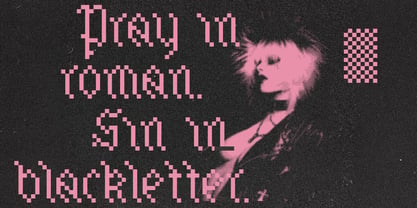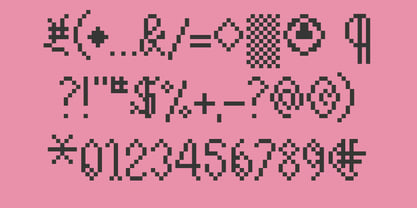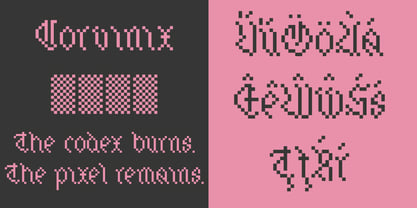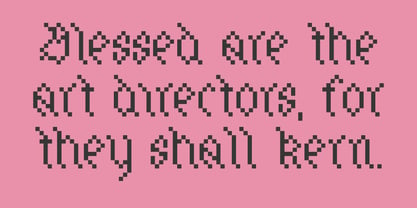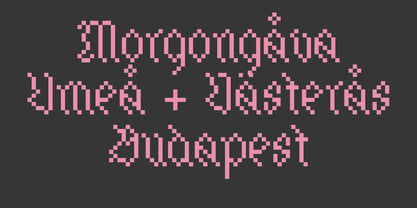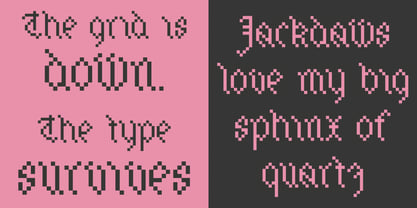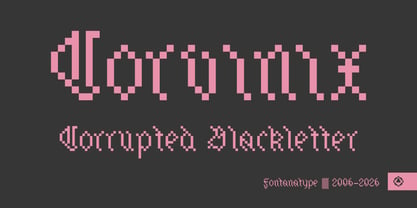
Corvinix
The Corvinix Font Family was designed by Amondó Szegi and published by Fontanatype. Corvinix contains 1 styles. More about this family
Corvinix — Corrupted Blackletter Metal album covers. Tattoo flash sheets. Game title screens. Underground zines. Streetwear graphics. Horror movie posters. Dark fantasy book covers. Anywhere the medieval and the glitched share the same aesthetic DNA — Corvinix belongs there. It’s blackletter filtered through an 8-bit screen. Gothic textura broken into pixels, every stroke grid-locked, every curve reduced to deliberate steps. The result sits somewhere between a medieval manuscript and a corrupted ROM file — retro, raw, and oddly readable. The name nods to Matthias Corvinus, the Renaissance king whose library once held the finest illuminated codices in Europe — most of them lost, scattered, or burned before anyone could make a backup. Originally drawn in 2006, rebuilt in 2026. Twenty years of pixel decay, still standing. Corvinix supports Latin Extended character sets including Central and Northern European languages — Hungarian, Swedish, Polish, Czech and more.